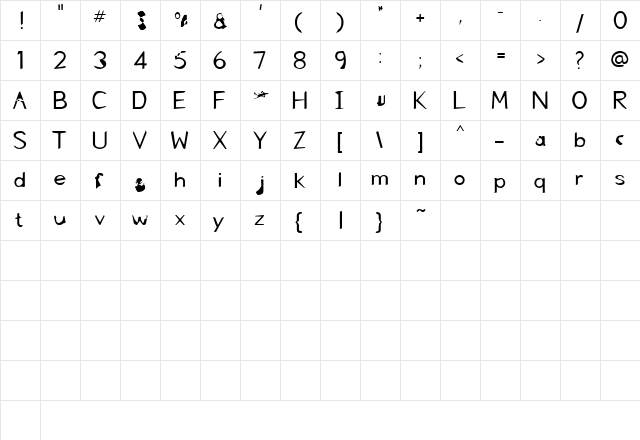
FKR NiceLife Medium
Design Context for FKR NiceLife Typeface
FKR NiceLife is a composed and adaptable typeface that performs quietly and consistently across a wide range of design contexts.